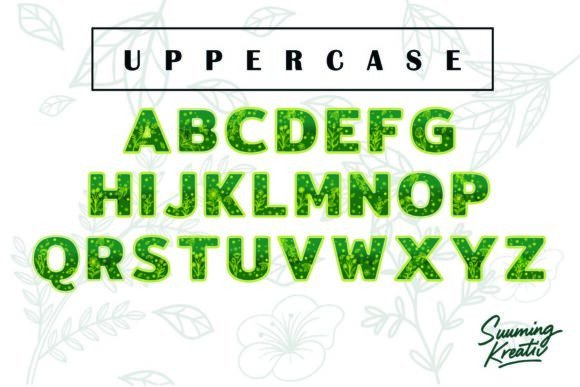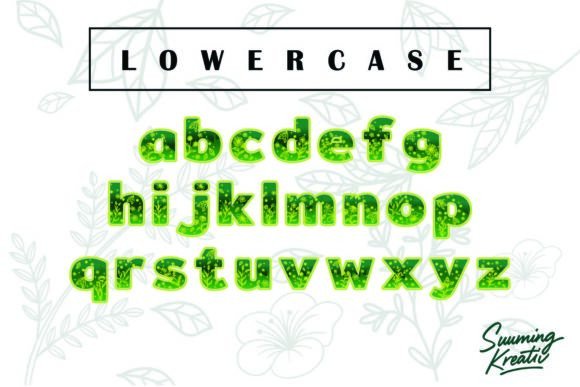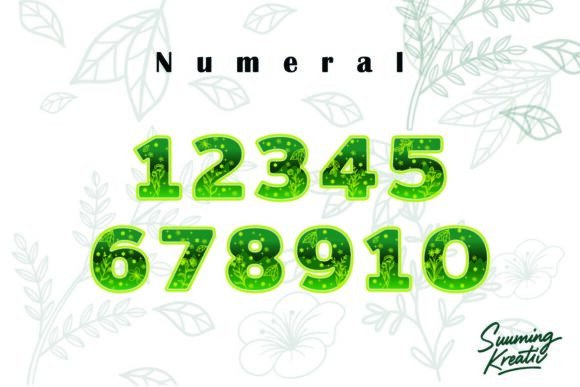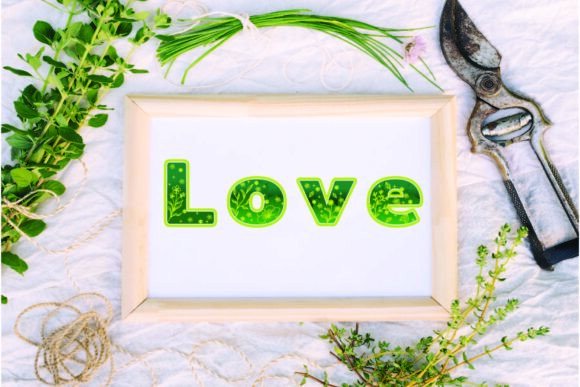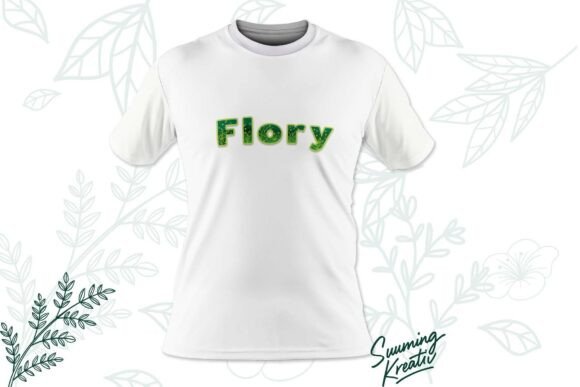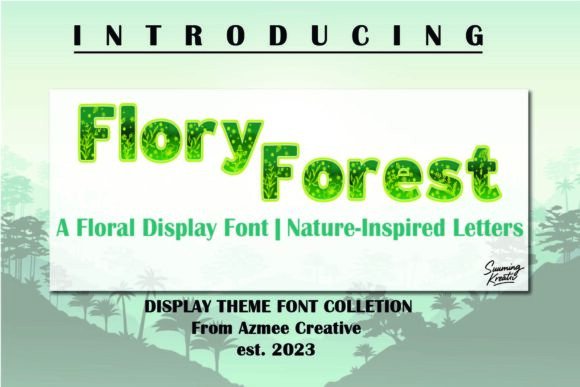
Bring the Calm Essence of Nature into Your Designs with Flory Forest Font
Are you looking for a font that captures the serenity and beauty of nature? Look no further than Flory Forest, a stunning botanical-themed display font that’s perfect for designers and crafters seeking to add a touch of elegance and whimsy to their creative projects. In this article, we’ll explore the unique features of Flory Forest and how it can elevate your branding, packaging, and decorative typography.
A Font Inspired by Nature’s Beauty
Flory Forest is part of the Flory Seasons Font Series, a collection of floral display fonts designed to evoke the changing moods of nature. This beautiful font is carefully crafted to bring the calm essence of the forest into your designs, with each letter meticulously filled with delicate floral and leaf patterns. The result is a typeface that’s both refreshing and serene, perfect for creating natural branding, organic packaging, greeting cards, and elegant decorative typography.
Unique Features of Flory Forest Font
So, what sets Flory Forest apart from other fonts? Here are some of its unique features:
- Botanical theme: Flory Forest is deeply rooted in nature, with a design that incorporates intricate floral and leaf patterns.
- Refreshing green tones: The font features a soothing palette of green tones that evoke the freshness of the forest.
- Warm botanical shapes: The font’s shapes are inspired by natural forms, adding a sense of warmth and organic feel to your designs.
- Elegant and whimsical: Flory Forest strikes the perfect balance between elegance and playfulness, making it suitable for a wide range of creative projects.
Flory Forest is an excellent choice for designers and crafters seeking to add a touch of nature-inspired beauty to their work. Here are some project ideas where this font can shine:
- Natural branding: Use Flory Forest to create eco-friendly branding that resonates with customers looking for sustainable products.
- Organic packaging: Add a touch of elegance to your packaging with Flory Forest, perfect for food, cosmetics, or wellness products.
- Greeting cards: Create beautiful, nature-inspired greeting cards for special occasions like birthdays, weddings, or holidays.
- Elegant decorative typography: Use Flory Forest to add a touch of sophistication to your typography, perfect for quotes, posters, or social media graphics.
Tips for Using Flory Forest Font
To get the most out of Flory Forest, here are some tips for using this beautiful font:
- Experiment with colors: While the font’s green tones are stunning, don’t be afraid to experiment with other colors to match your brand or project’s aesthetic.
- Mix and match: Combine Flory Forest with other fonts to create a unique and visually appealing typography.
- Pay attention to spacing: Make sure to adjust the spacing between letters to ensure the font’s intricate patterns don’t overwhelm the design.
Flory Forest Font is a beautiful, botanical-themed display font that brings the calm essence of nature into your creative work. With its delicate floral and leaf patterns, refreshing green tones, and warm botanical shapes, this font is perfect for designers and crafters seeking to add a touch of elegance and whimsy to their projects. Whether you’re creating natural branding, organic packaging, greeting cards, or elegant decorative typography, Flory Forest is an excellent choice. So why not give it a try and see how this stunning font can elevate your designs?